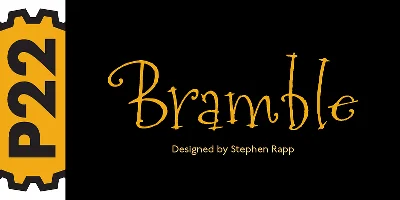
P22 Bramble Font
P22 Bramble Font is a decorative serif typeface with a vintage-inspired design, blending elements of organic curves and sharp, edgy details. Perfect for projects that require a sense of personality, charm, and history, this font is ideal for use in branding, packaging, posters, invitations, and other creative projects where a unique, artistic feel is desired.
P22 Bramble Font features strong, textured letterforms with an artistic flourish, giving it an organic, hand-crafted look. Its distinctive design makes it a great choice for creative industries, retro-inspired designs, or projects that need a touch of elegance with a bit of whimsy.
This font works well for display text, headlines, and logos, but can also be used creatively in more elaborate, decorative settings. It pairs beautifully with simpler sans-serif fonts to balance out its expressive style.